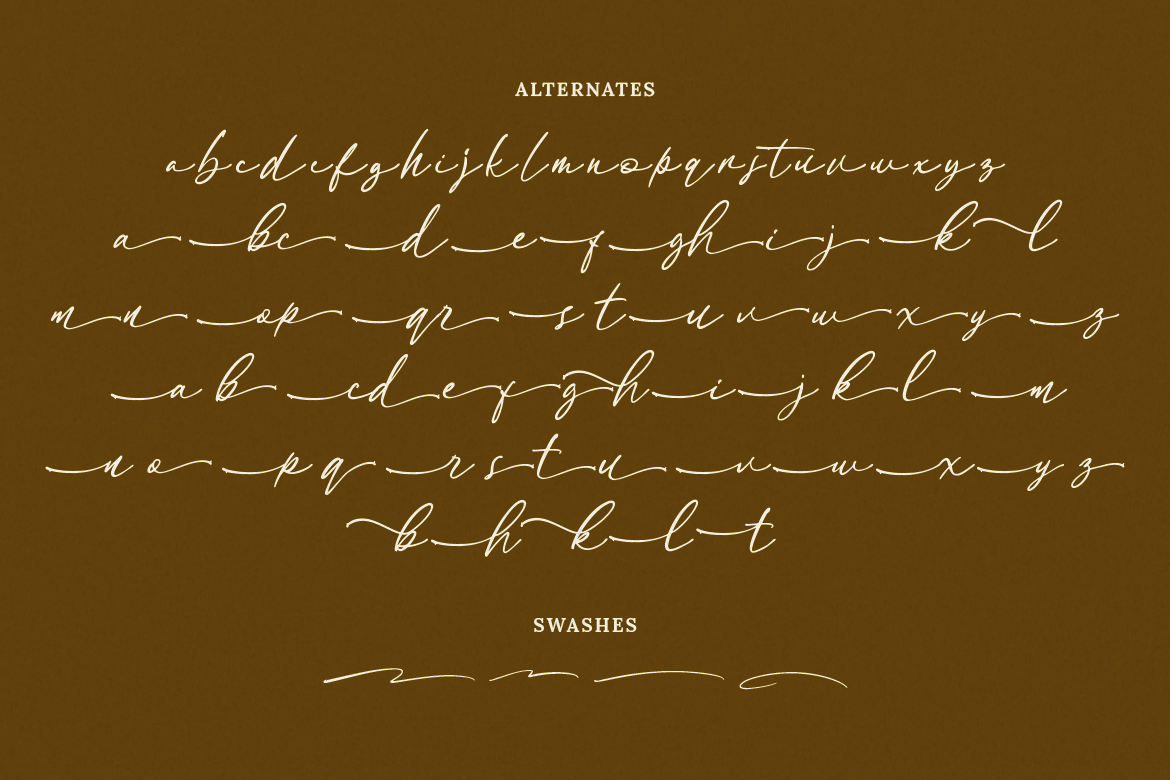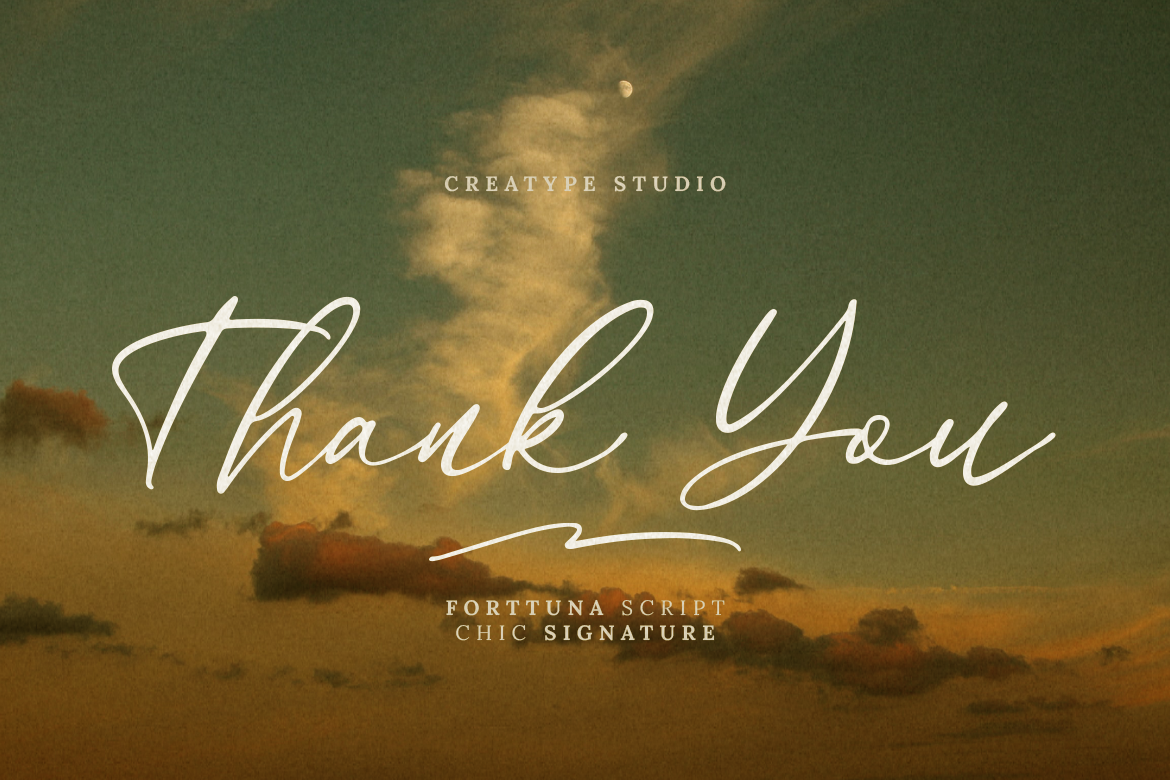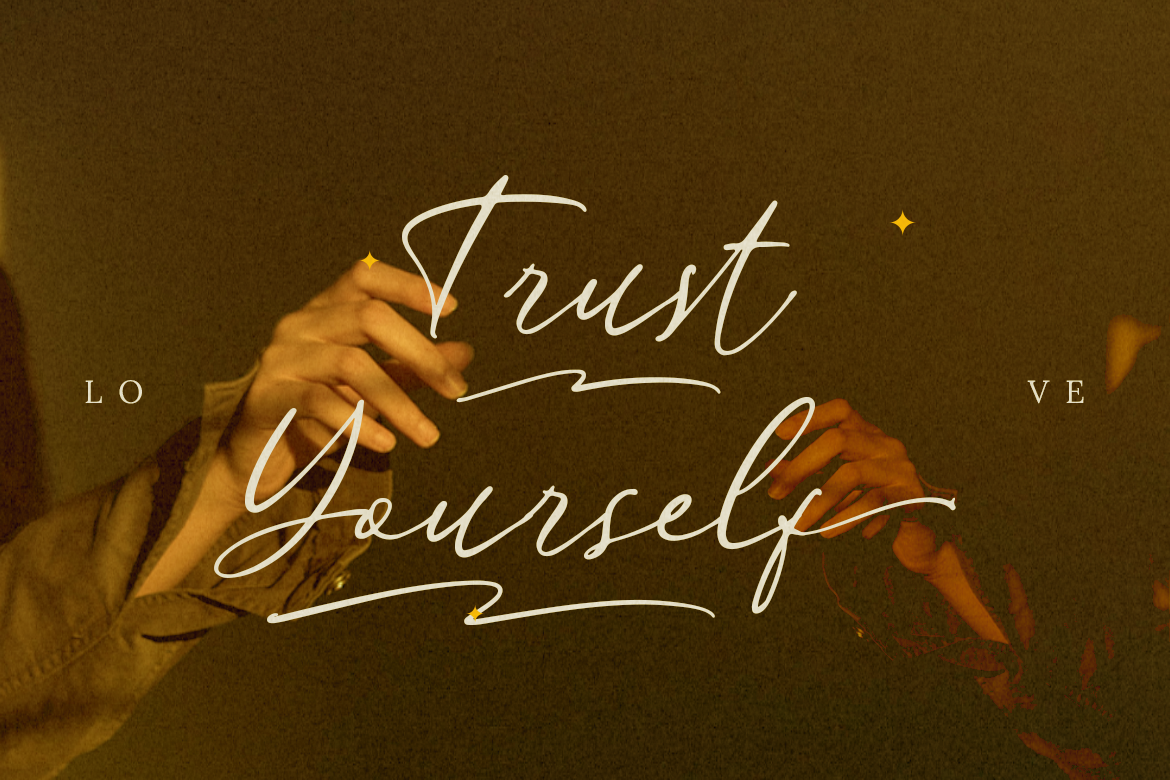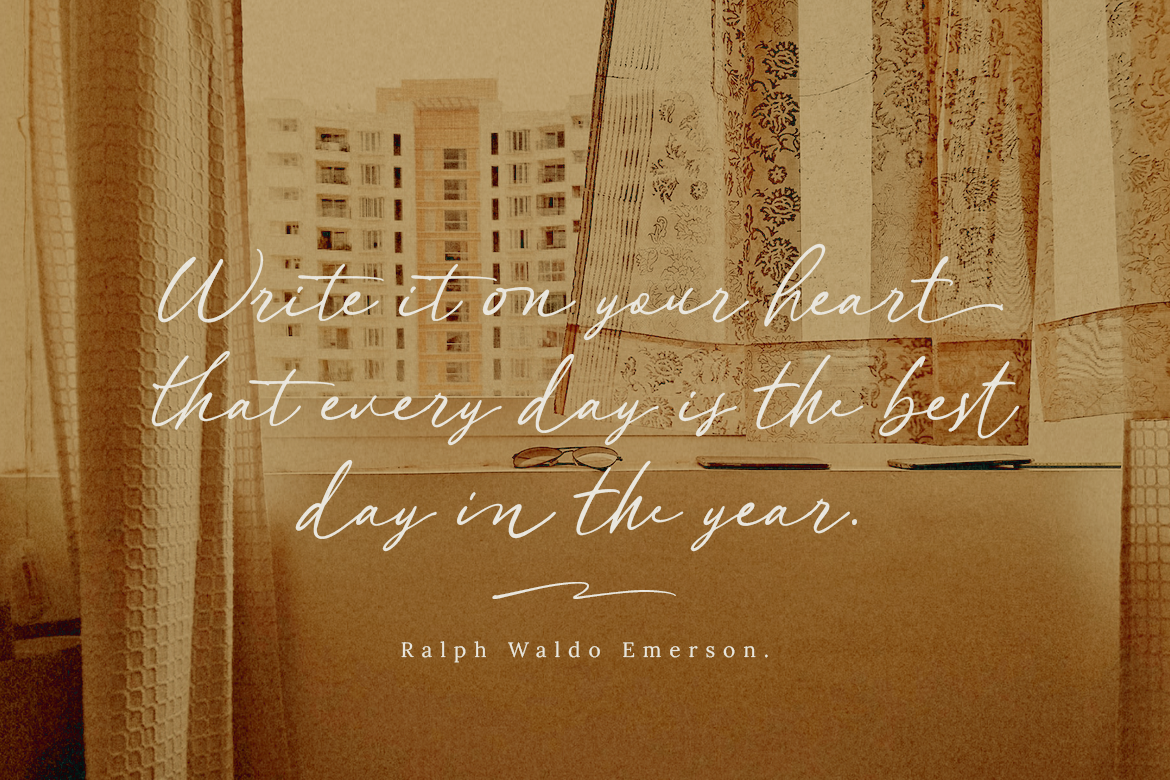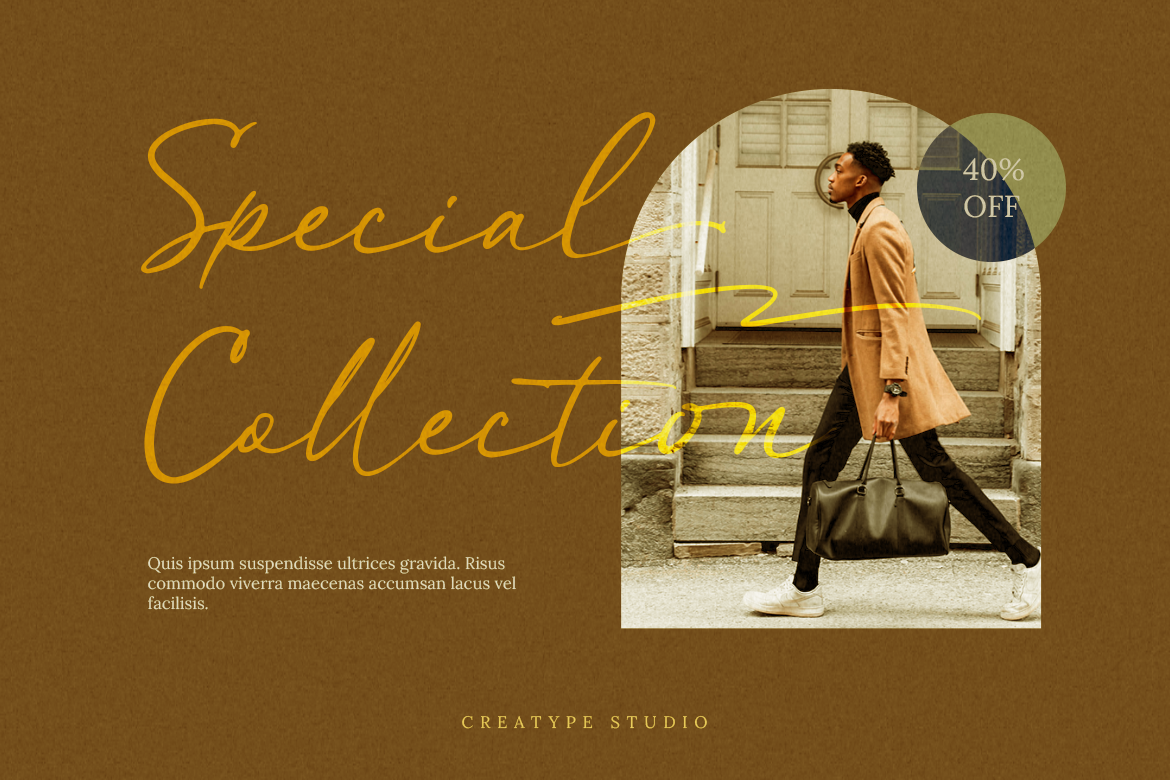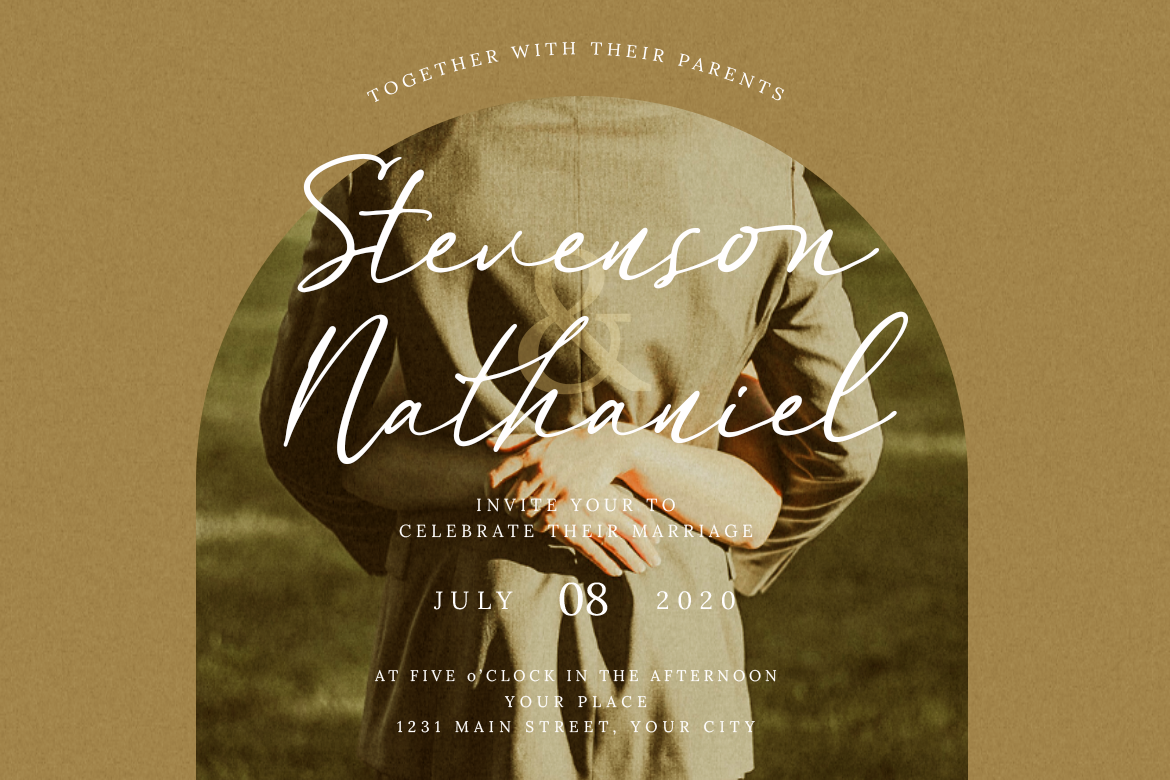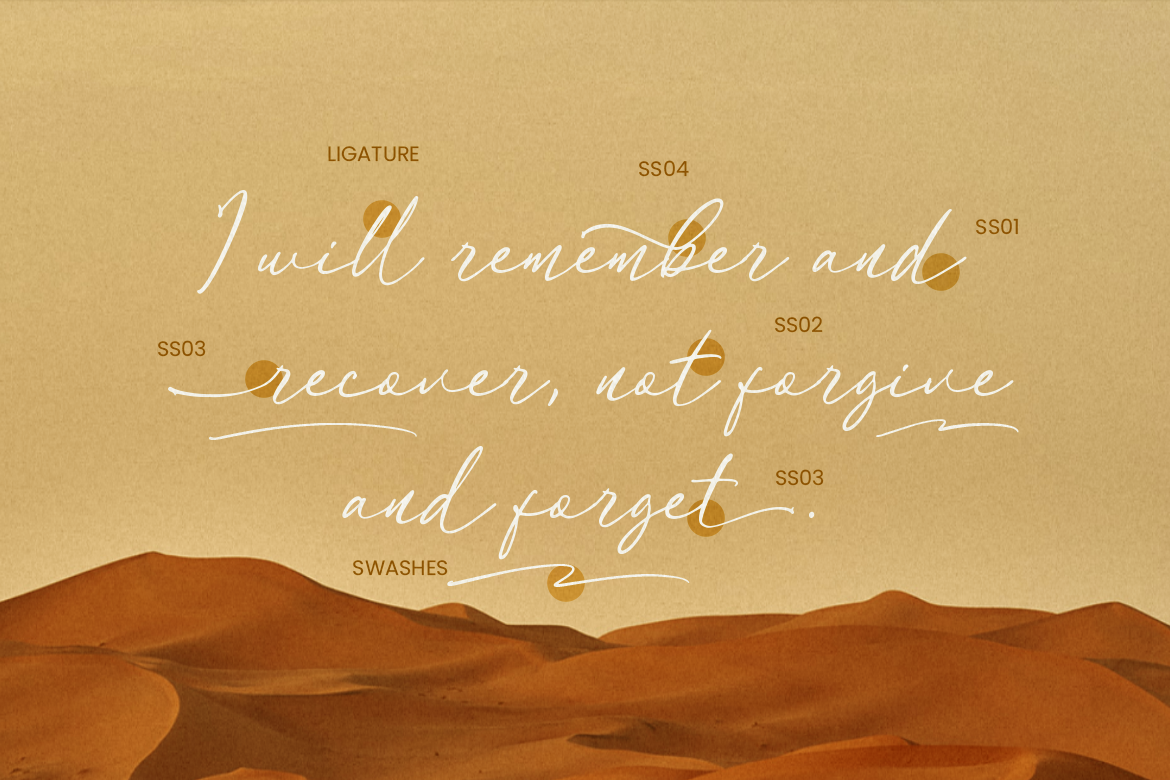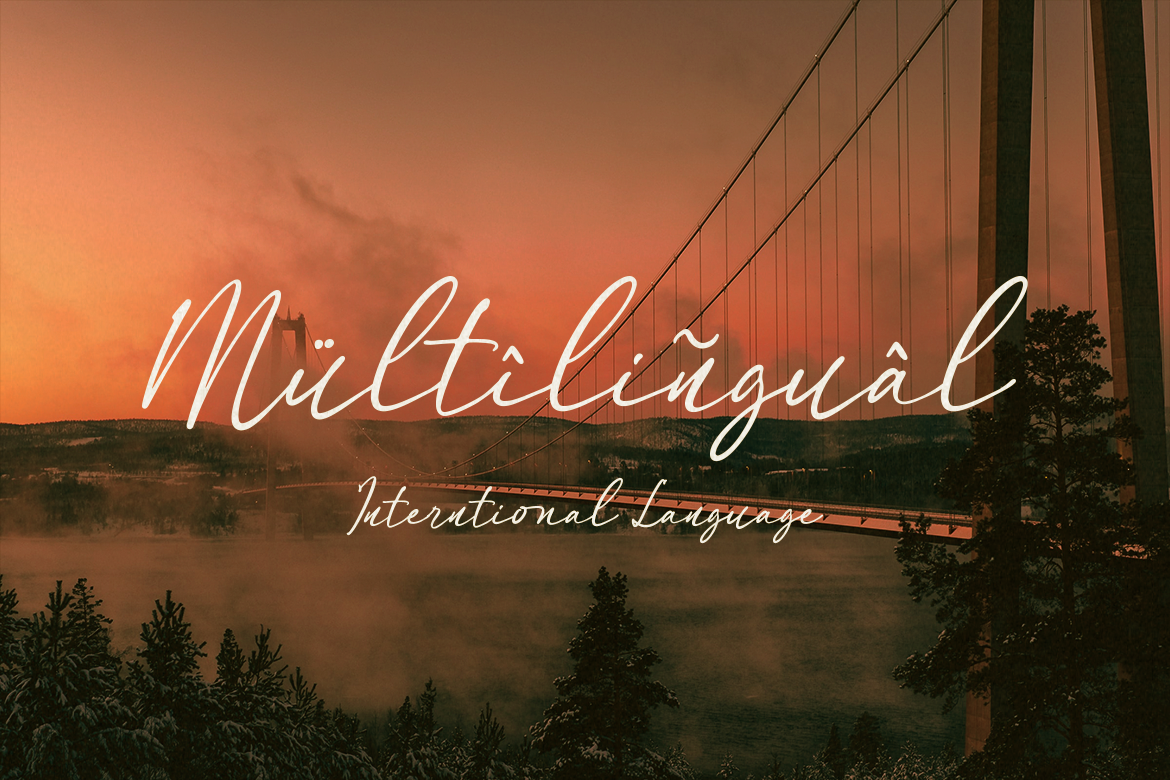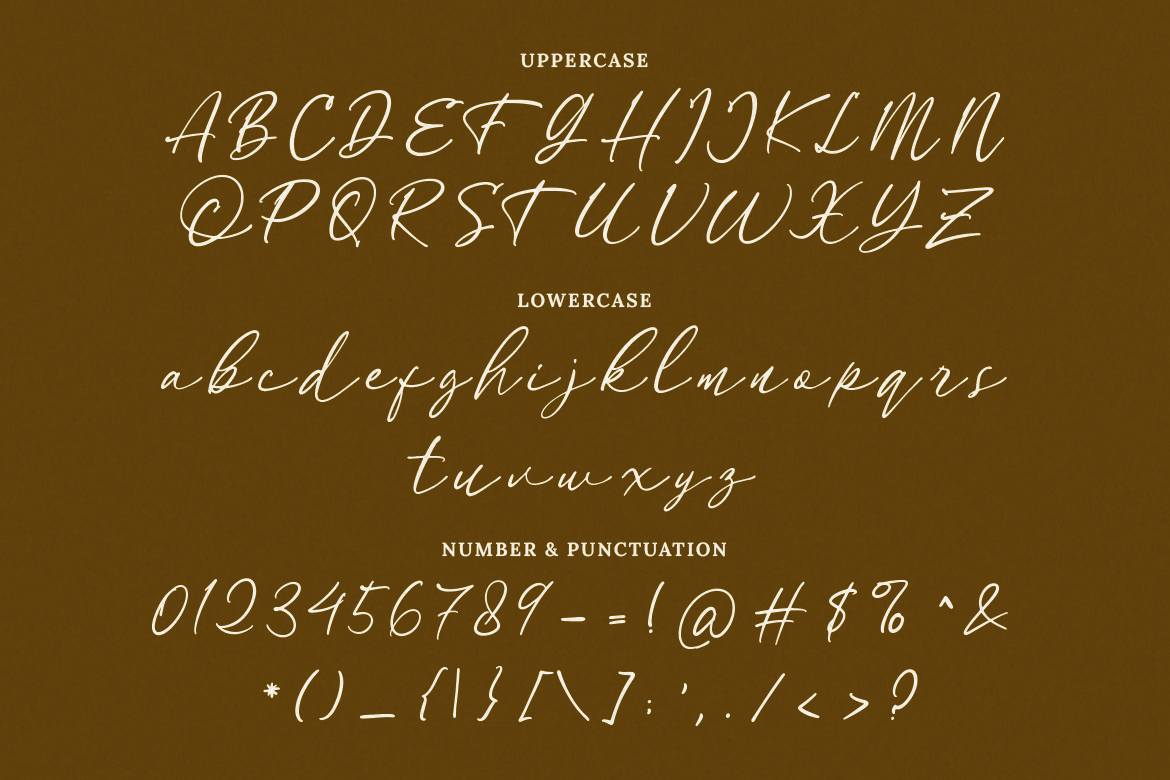
Forttuna is beautiful, natural, and feminine are three words that describe Forttuna. Just like the goddess, Forttuna represents fortune and luck. It fits every need, whether it’s business or personal.
Forttuna is perfect for branding projects, logo, wedding designs, social media posts, advertisements, product packaging, product designs, label, photography, watermark, invitation, stationery and any projects that need handwriting taste.
• Ton of glyphs
• Ligature & Alternate
Forttuna Chic Signature